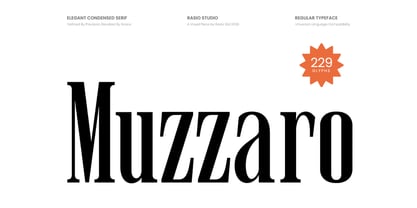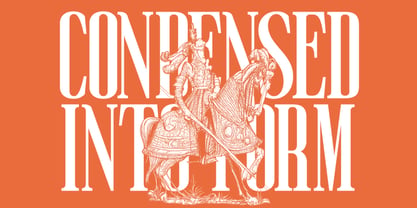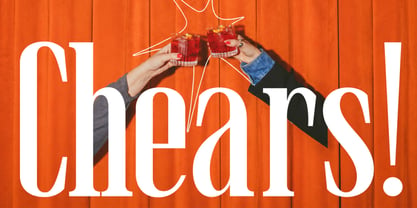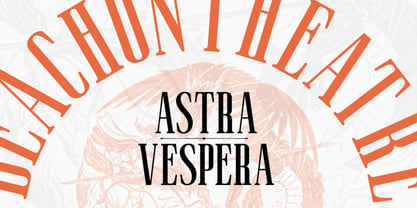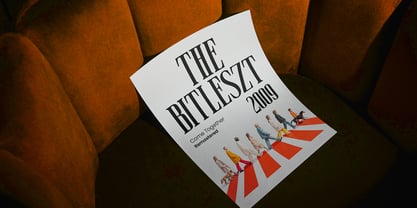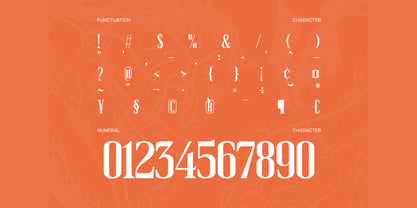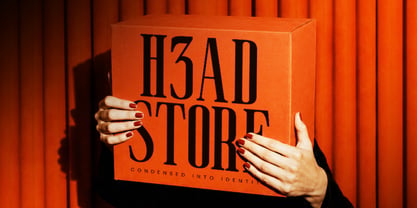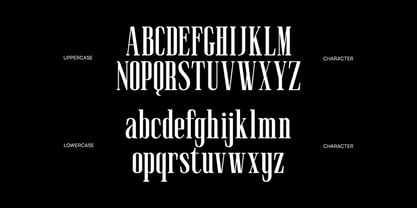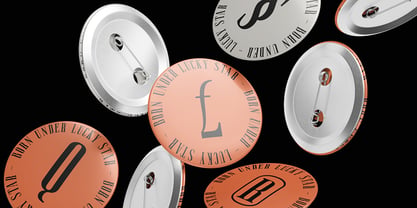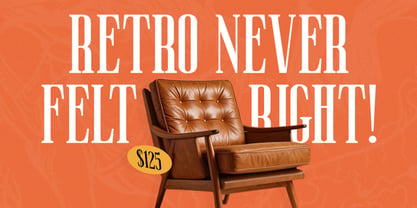
Muzzaro
La familia tipográfica Muzzaro fue diseñada por Fajar Indra y publicada por Rasio Studio. Muzzaro contiene 1 estilos. Más información sobre esta familia
Muzzaro is an elegant condensed serif typeface featuring high-contrast strokes, refined curves, and tall proportional characters that create a luxurious editorial appearance. The font includes uppercase, lowercase, numerals, punctuation, for versatile typography needs. Its slim structure and sharp serif details deliver a sophisticated visual rhythm suitable for premium branding, fashion layouts, magazine headlines, and stylish packaging designs.
Relevance & Use Cases is highly relevant for luxury branding, editorial publishing, fashion campaigns, beauty packaging, premium invitations, and elegant social media visuals. Its condensed proportions and refined serif construction make it especially effective for magazine headlines, boutique logos, cosmetic branding, jewelry promotions, and modern lifestyle presentations that require a polished and sophisticated appearance.